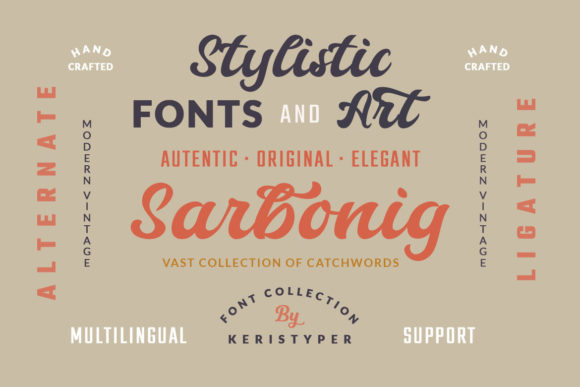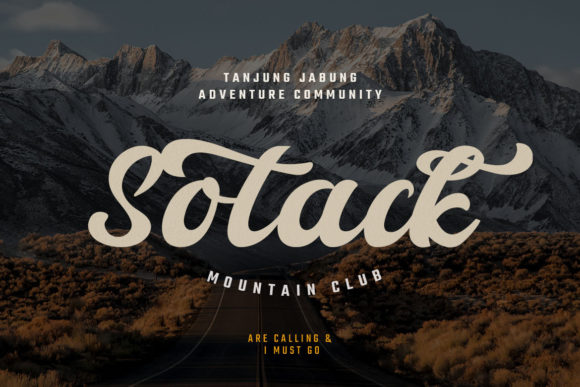
Mostyle Font
db-ku.com - Script & Handwritten -- Mostyle is a retro and gorgeous script font. It is perfect for vintage designs, badges, logos, posters, branding, packaging, signage, book cover and more.